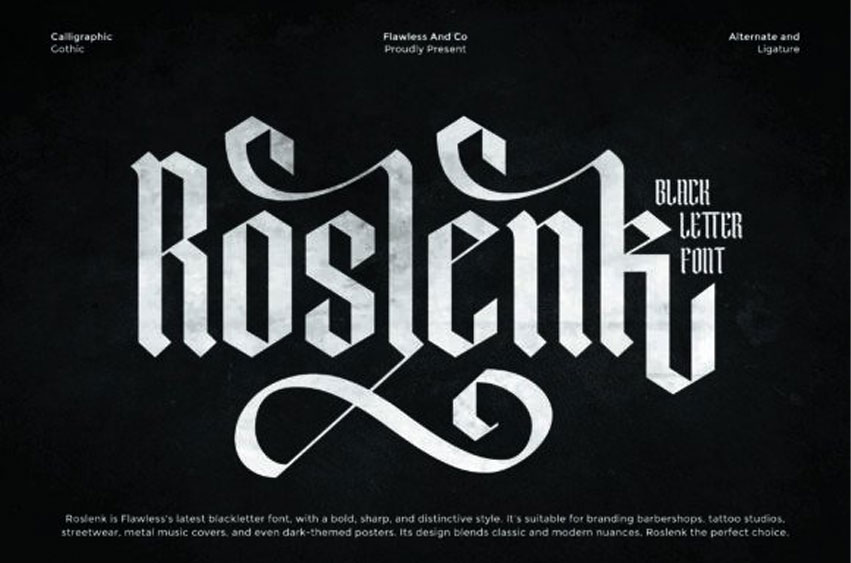
Roslenk Font
Roslenk Font is a bold blackletter font with a sharp, striking, and timeless character. Its design captures the essence of Gothic calligraphy while blending in a modern touch, making it stand out in every project.
Perfectly suited for branding barbershops, tattoo studios, streetwear fashion, heavy metal music covers, dark-themed posters, and more, Roslenk delivers both power and elegance in one package.